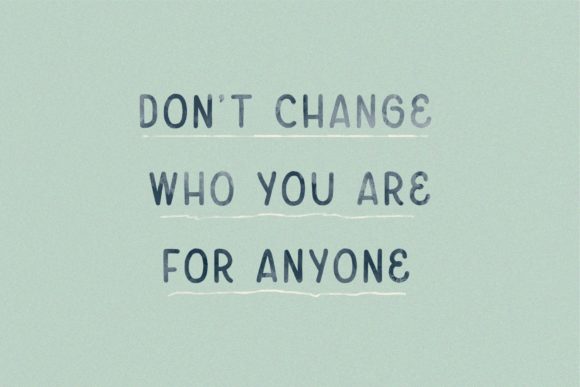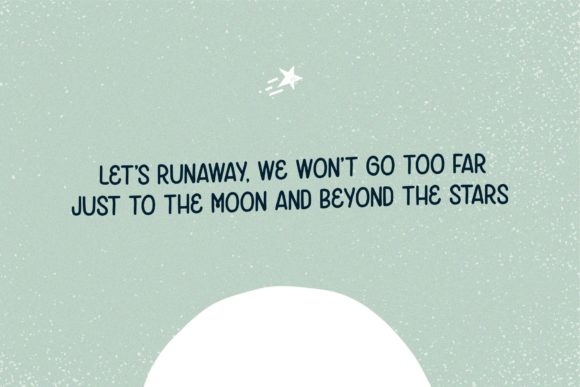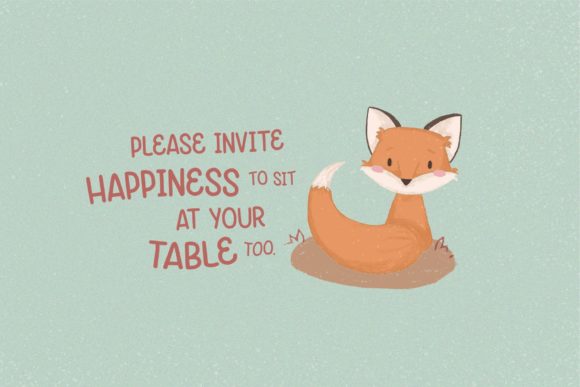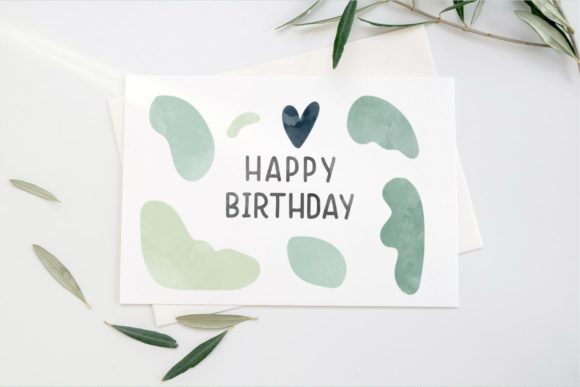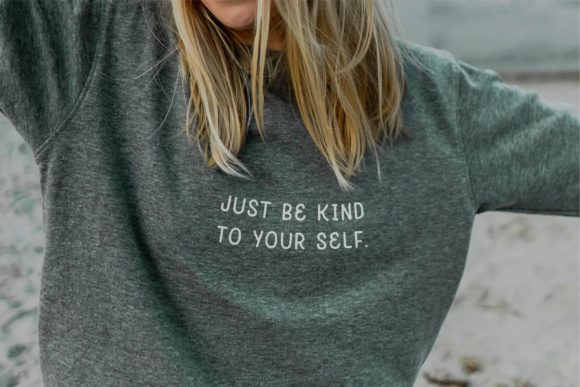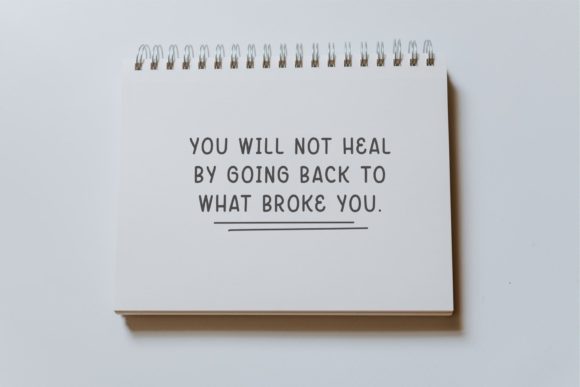
Introduction to Molven Font
As you stand in front of a blank chalkboard, trying to come up with the perfect quote to inspire your students, you can’t help but feel a rush of creativity. The blank slate is a designer’s dream, waiting for the perfect words to bring it to life. But what makes a quote truly stand out? That’s where the Molven Font comes in – a cute and simple handwritten font that adds a personal touch to your designs.
Whether you’re working on a chalkboard quote or a teaching material, the Molven Font is a valuable resource for designers. Its authentic look will transport your audience to a bygone era, making your designs feel more realistic and engaging. With its transparent background and high-quality design, the Molven Font is a must-have for any creative project.
Key Features of Molven Font
- High-quality design resource with a unique, modern aesthetic, perfect for creative projects.
- Features a transparent background, allowing for seamless integration with any design or background.
- Includes a range of characters, including uppercase and lowercase letters, numbers, and punctuation marks, making it a versatile design resource.
- Designed with a high resolution of 300 DPI, ensuring crisp and clear text rendering, ideal for print and digital applications.
- Available in a single font size, with scalable options for flexibility and customization.
- Suitable for a wide range of creative projects, including logos, branding, and graphic design, due to its modern and stylish design.
Honest Review: Molven Font
I recently stumbled upon the Molven Font and was excited to give it a try for my latest creative project. As a designer, I’m always on the lookout for high-quality design resources that can elevate my work.
The Molven Font is a beautifully crafted font that boasts a unique and elegant design. It’s perfect for any project that requires a touch of sophistication and refinement. I particularly love its versatility and the fact that it’s free to download.
- ✨ Unique and elegant design that adds a touch of sophistication to any project.
- ✨ Highly customizable, making it perfect for a wide range of creative projects.
- ✨ High-quality design that’s sure to impress.
- ⚠️ The font doesn’t come with a transparent background option, which can be a bit limiting for some projects.
- ⚠️ The font is not available in as many languages as I would like.
Overall, I’m thoroughly impressed with the Molven Font and would highly recommend it to any designer looking for a high-quality design resource. With a little creativity, the limitations can be easily worked around, and the end result is well worth it.
The Molven Font is ideal for creative projects that require a high-quality, elegant font. Some common use cases include:
- Product packaging and labels
To get the most out of the Molven Font, use it in conjunction with a transparent background to create a sophisticated and modern design. Experiment with different font sizes and colors to add depth and visual interest to your project.